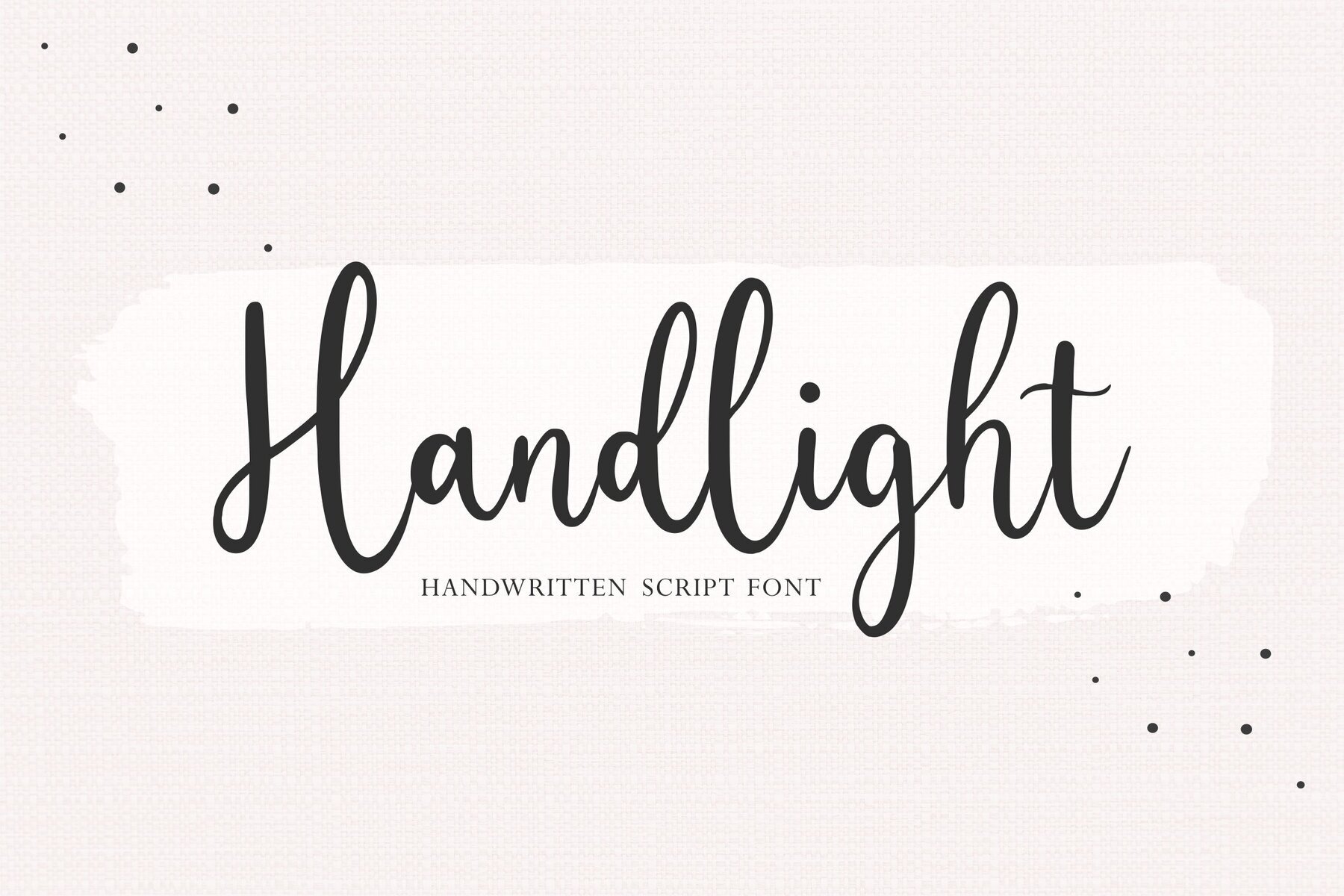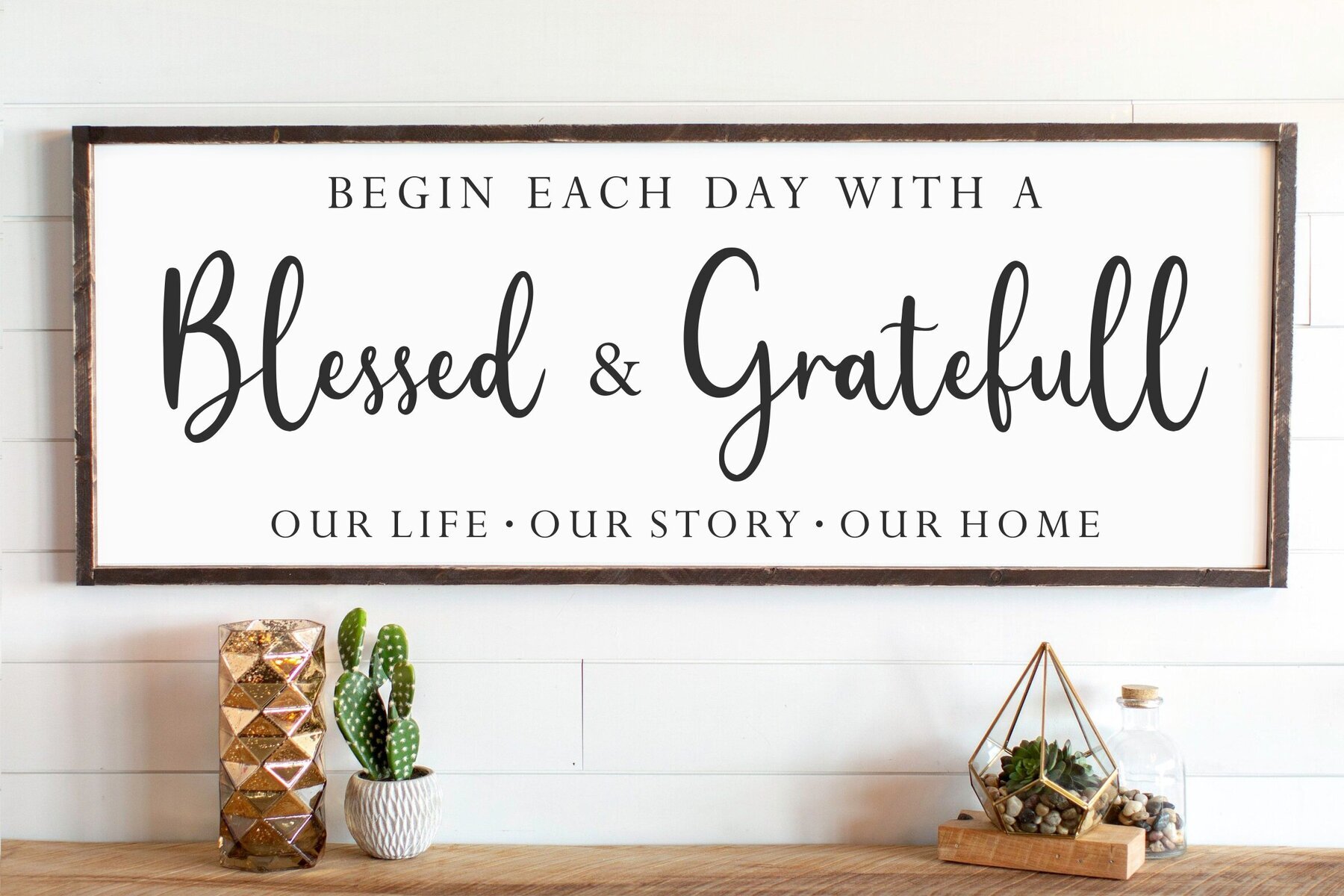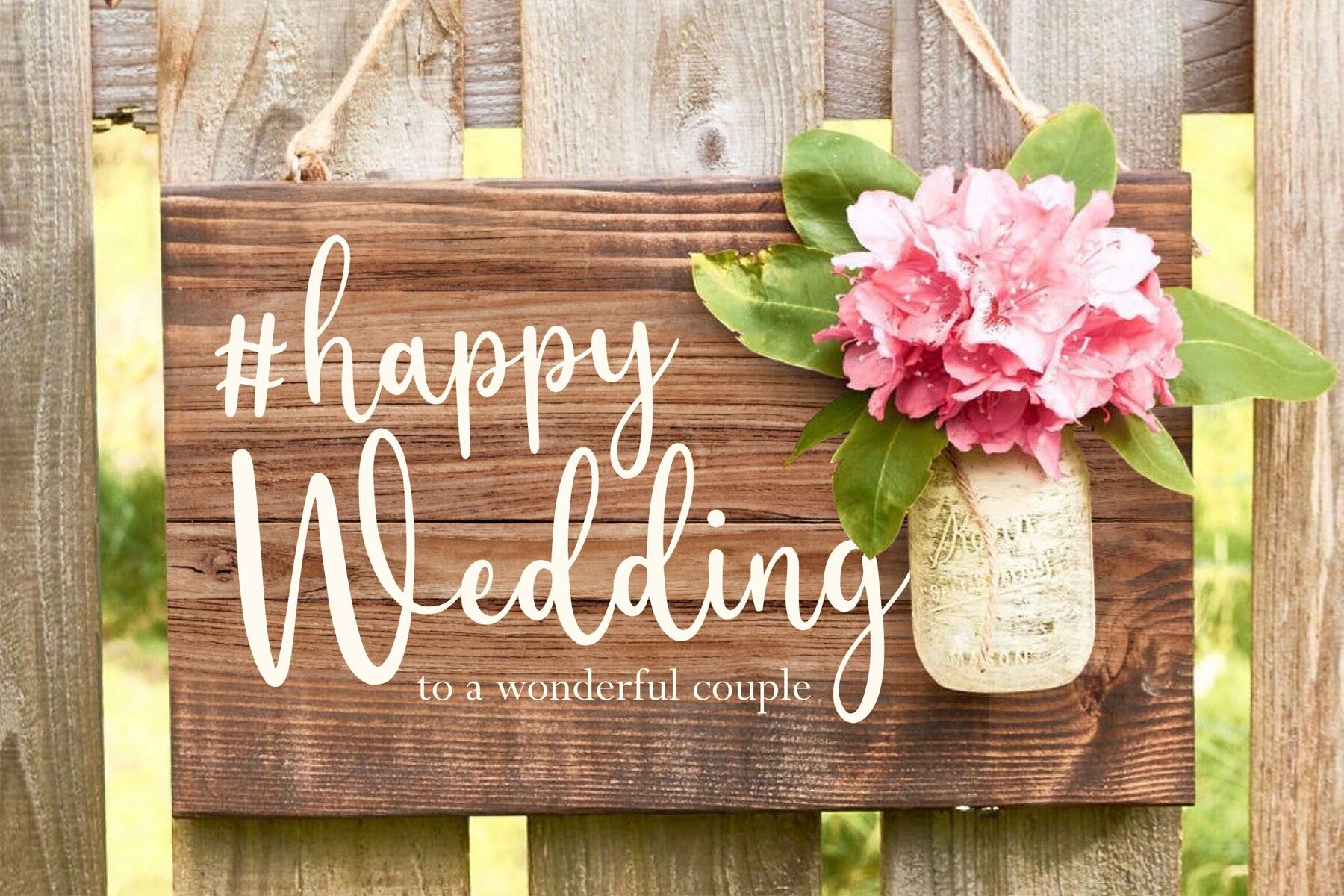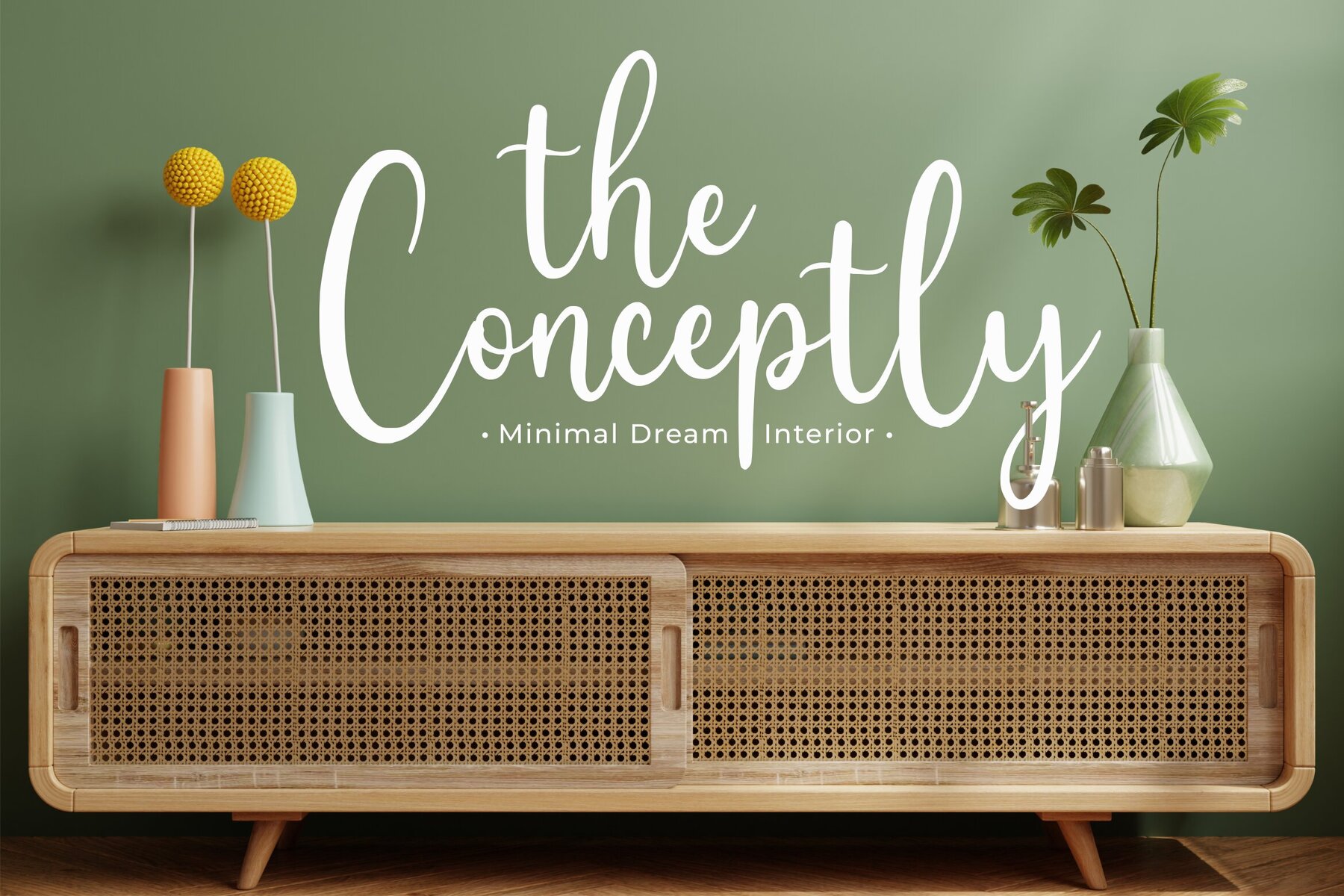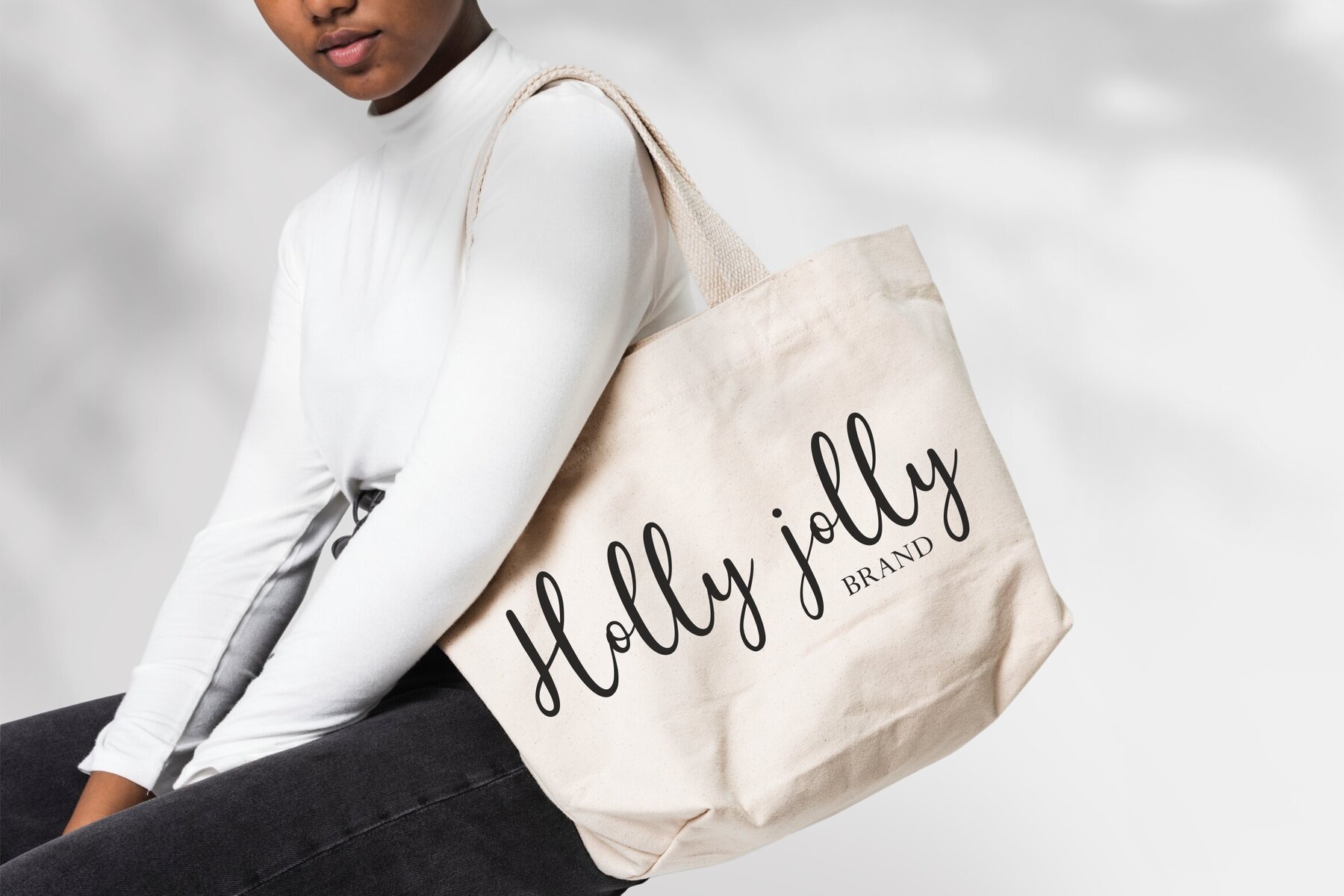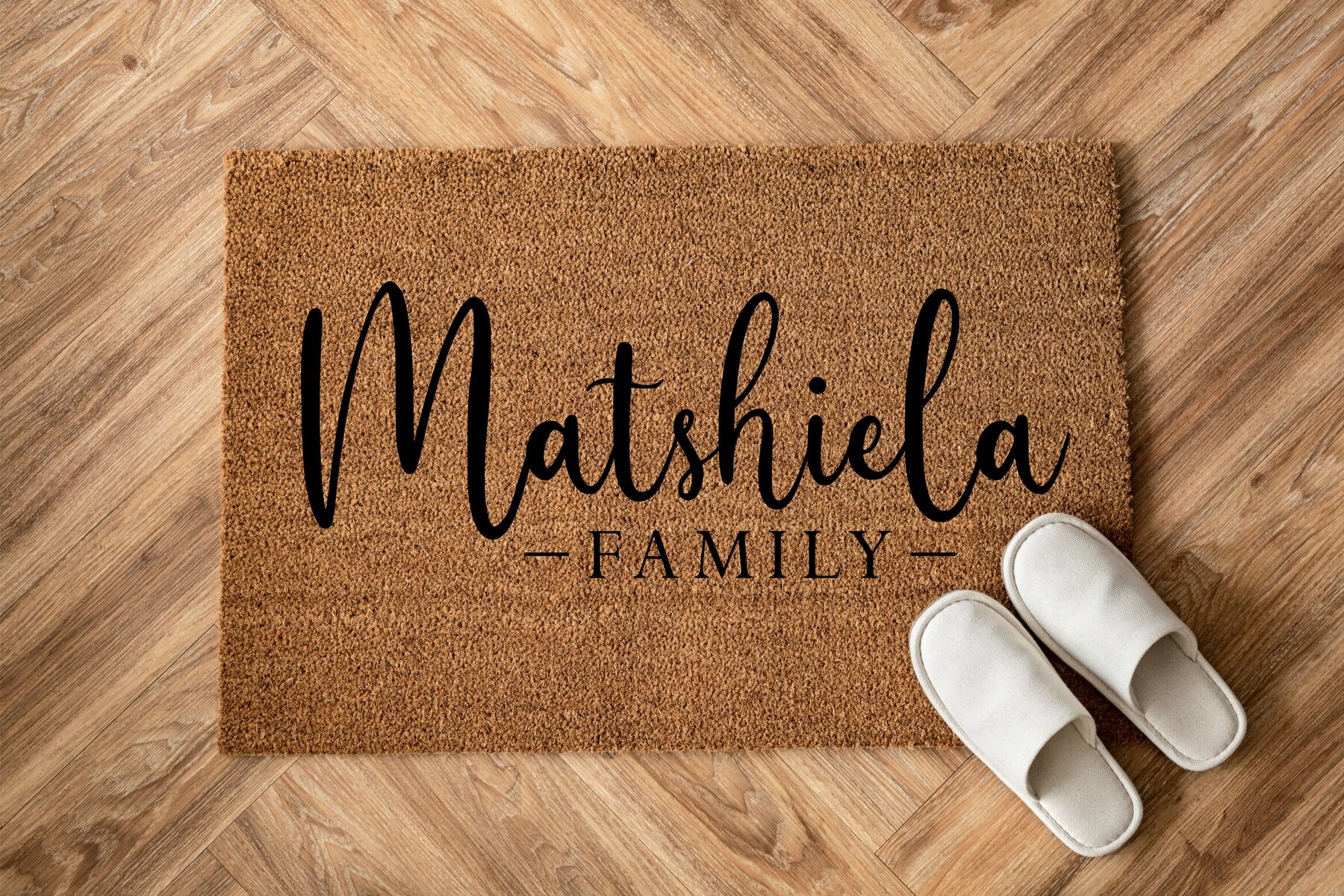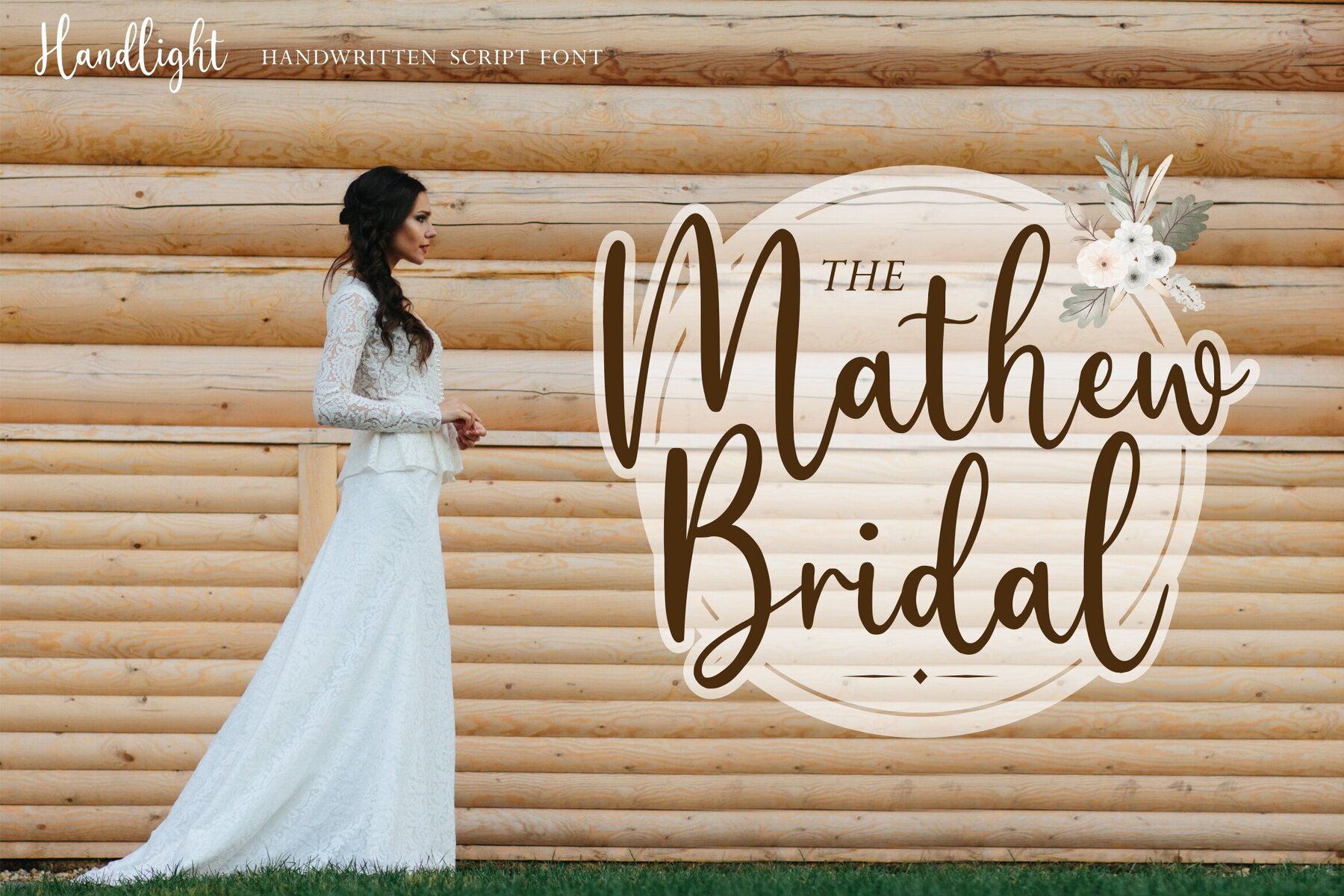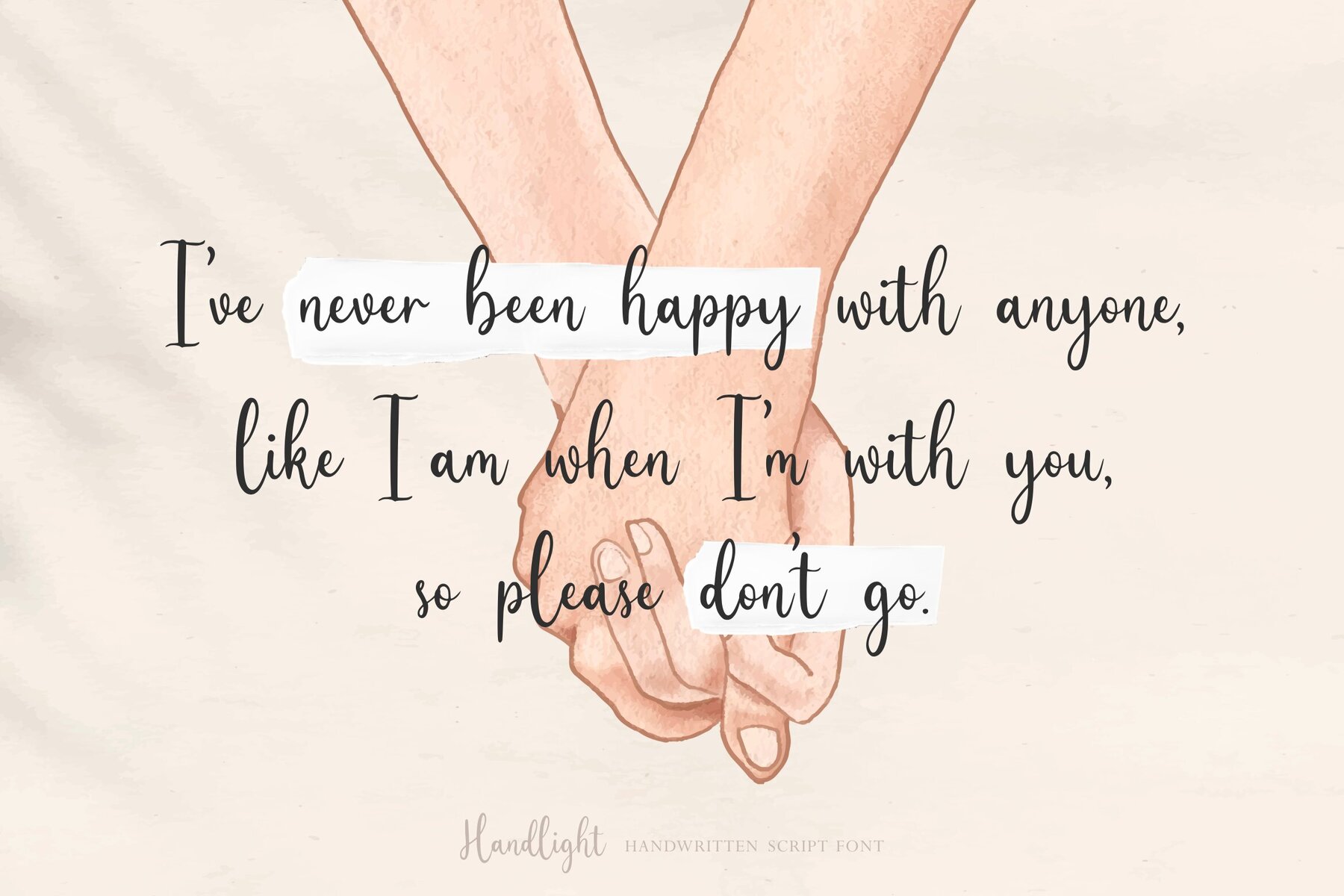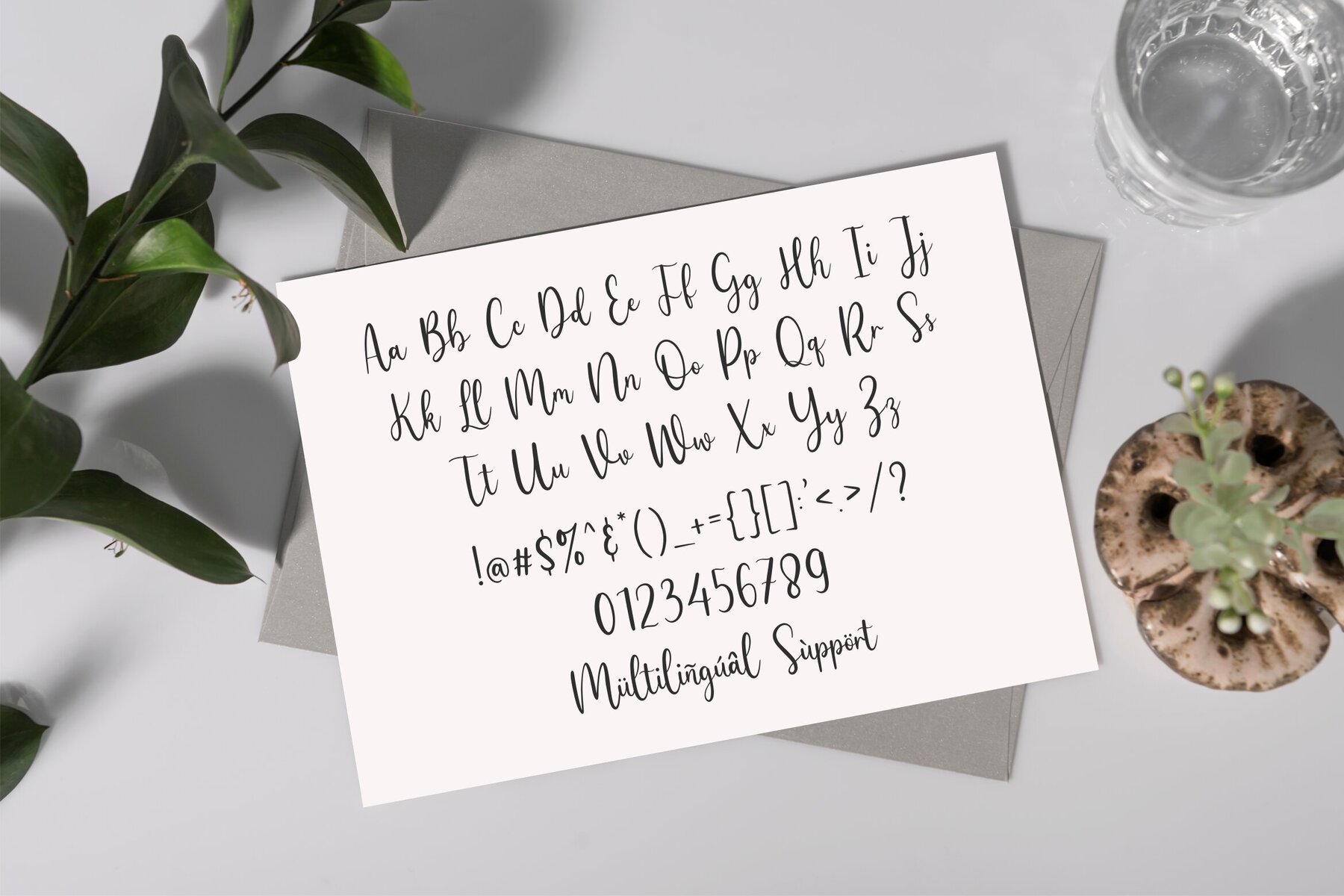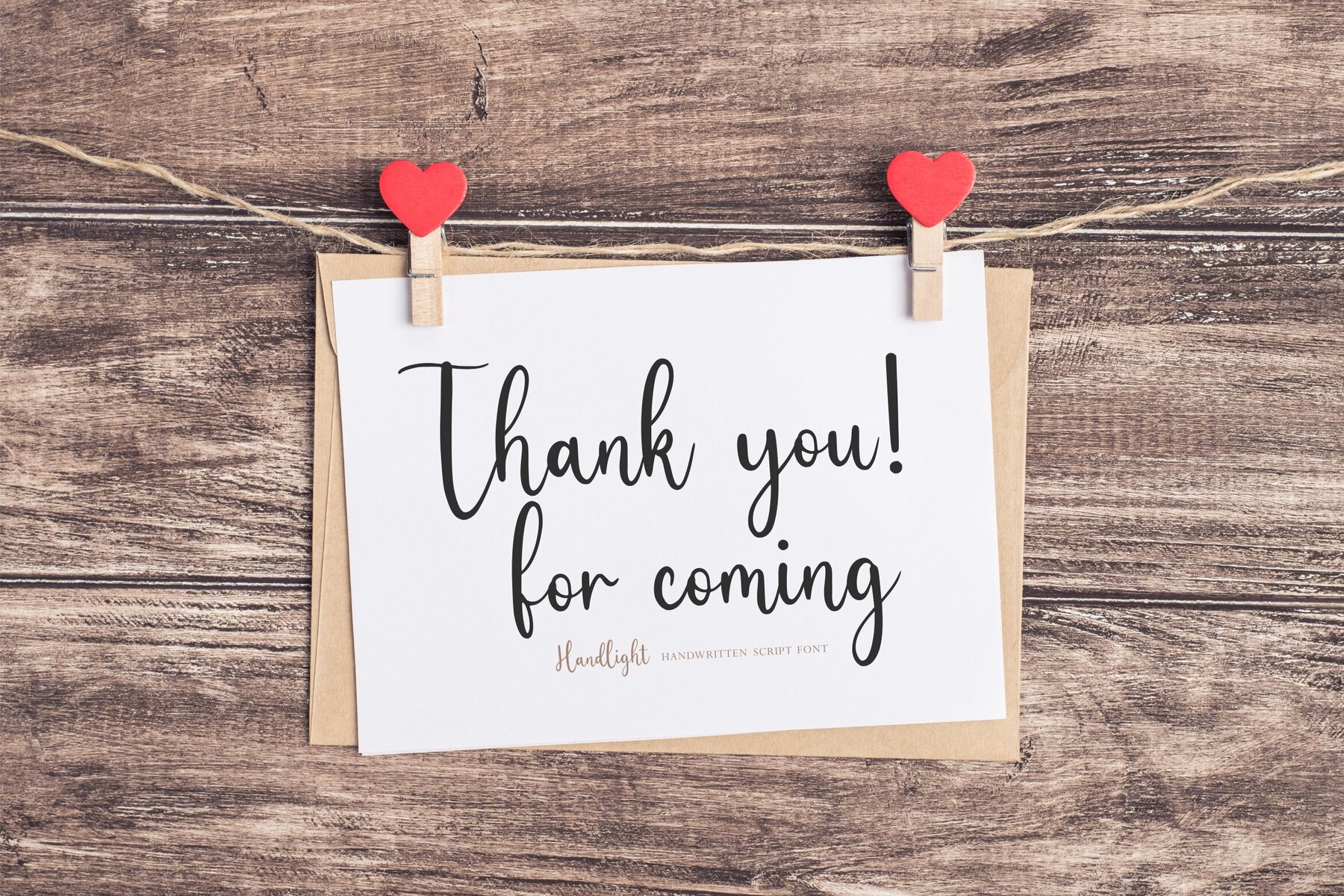
Handlight Font
Handlight Regular
The allure of handwritten typography brings a personal touch to all design endeavors. Handlight, developed by Allouse Studio, effortlessly combines elegance with functionality, making it an ideal choice for a wide range of applications.Handlight: A Versatile Script for Diverse Projects